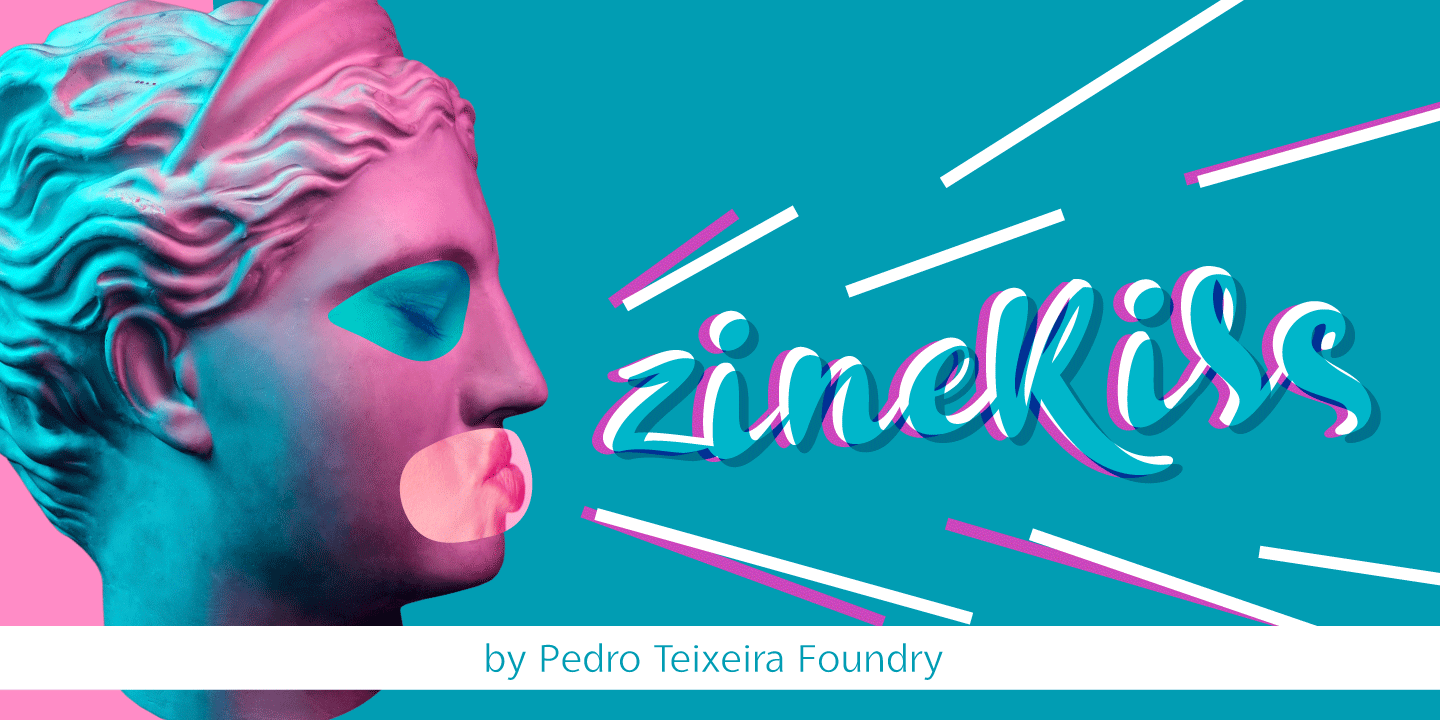
Zinekiss
Designed by Pedro Teixeira, Zinekiss is a hand drawn, modern calligraphy and dingbat font family. This typeface has two styles and was published by Pedro Teixeira.
Zinekiss - for the love of black ink and zine culture. Zinekiss, is a font with a very natural/organic handrawn script of black ink
Foundry Pedro Teixeira
Styles Hand Drawn, Modern Calligraphy, Dingbat
Designer Pedro Teixeira